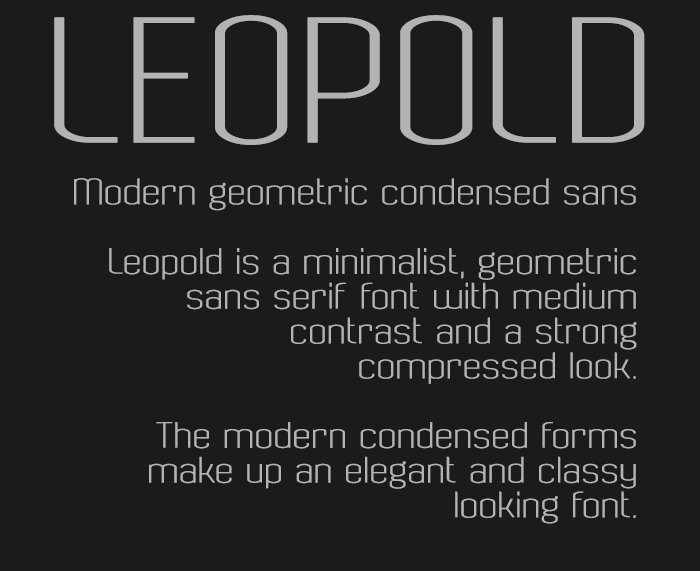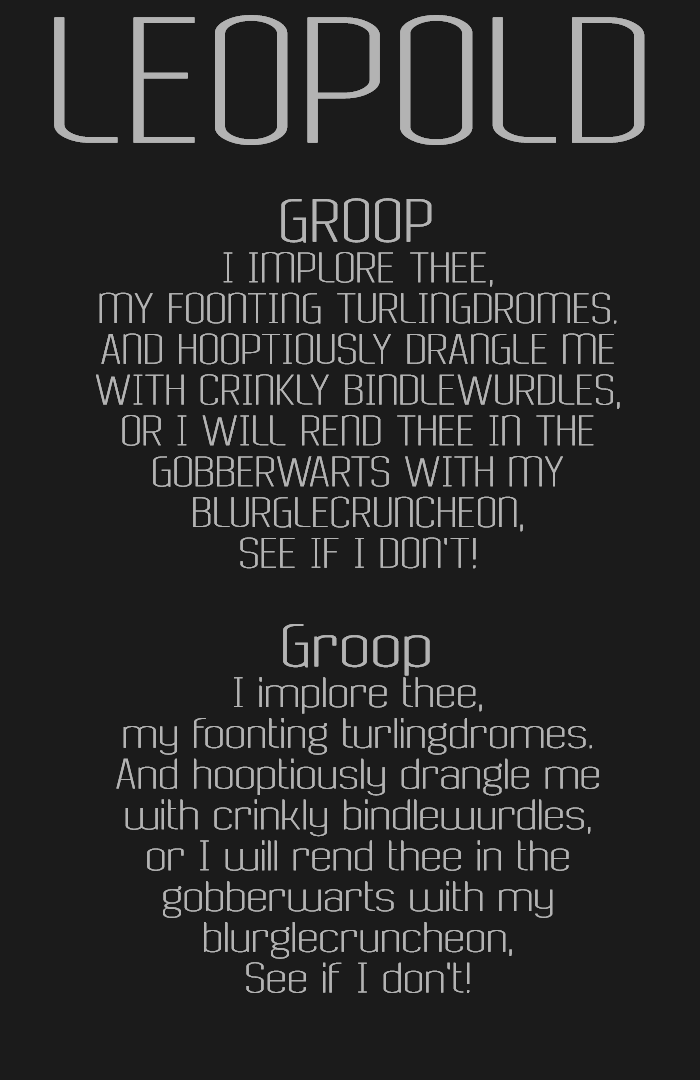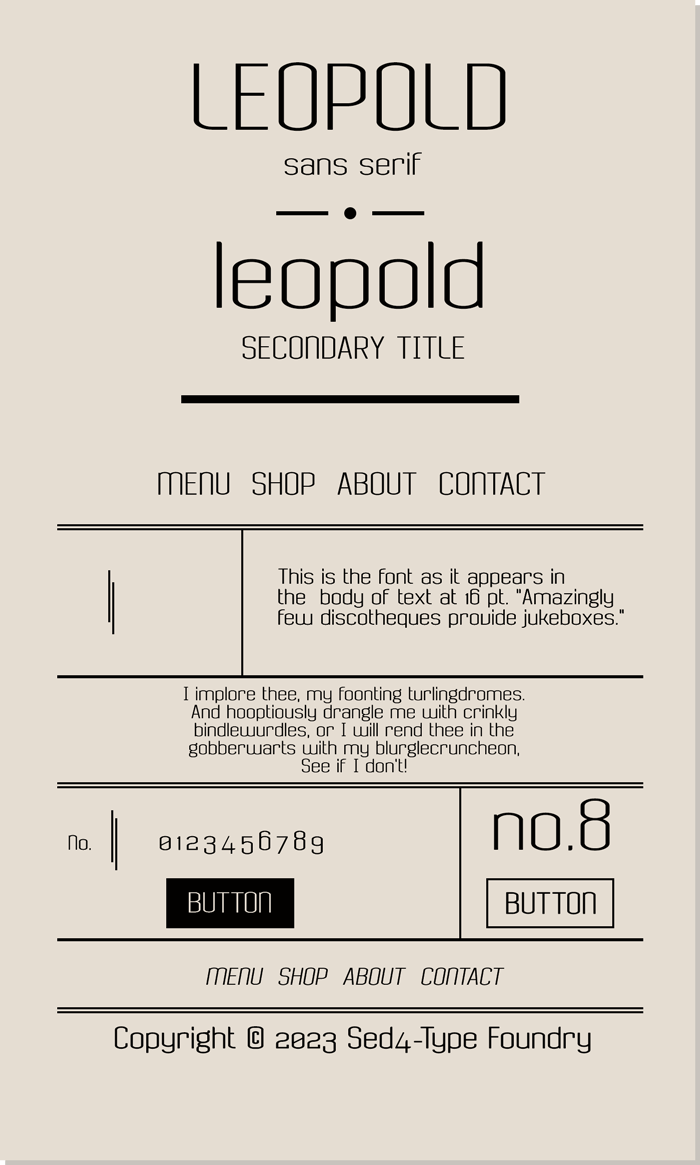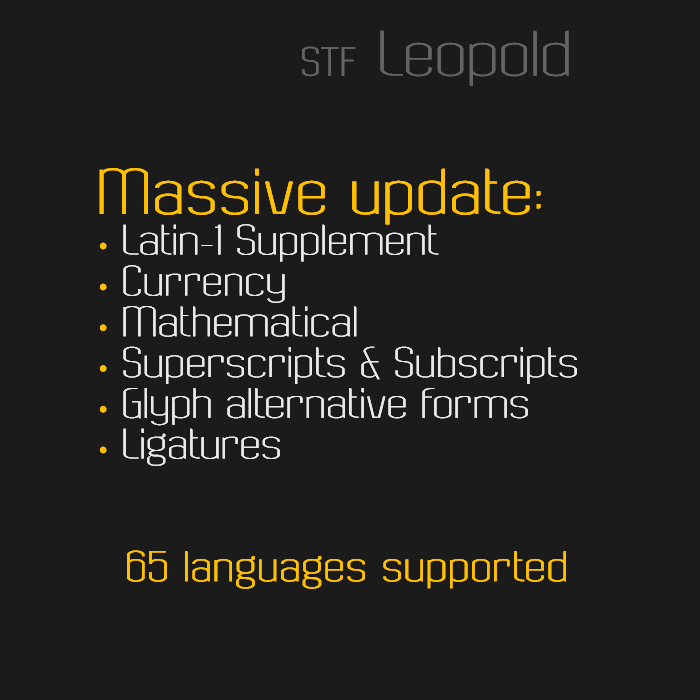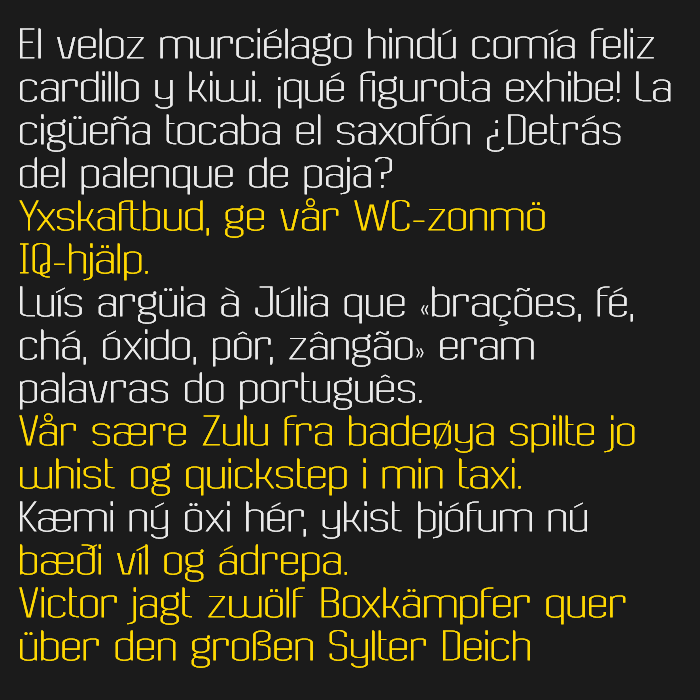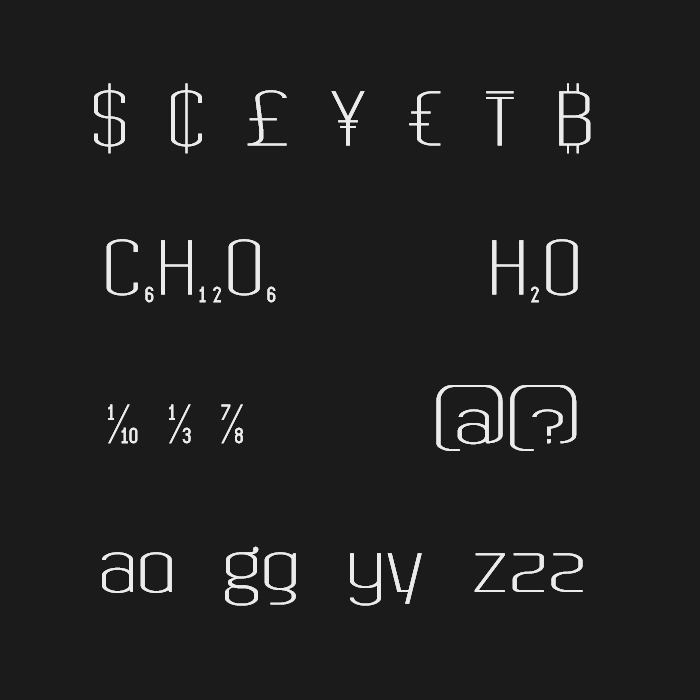
This is a nice (and I’d say somewhat tender) body text font. I like the slight accent on your ‘4’. :)
I love this one!
I wonder what a Question-at sign is
Just an alternative form for @
In preperations of converting this design into a multi-styled typeface family, this FontStruction previously simply went by the name "Leopold", was renamed into "Leopold Pro (Sans-Regular)".
How did you make this?
@Yellow: I will post some outline views when I get back at PC
YOO ALTERNATIVES!
HOW DO YOU MAKE THE ALTERNATES THEN @Sed4tives